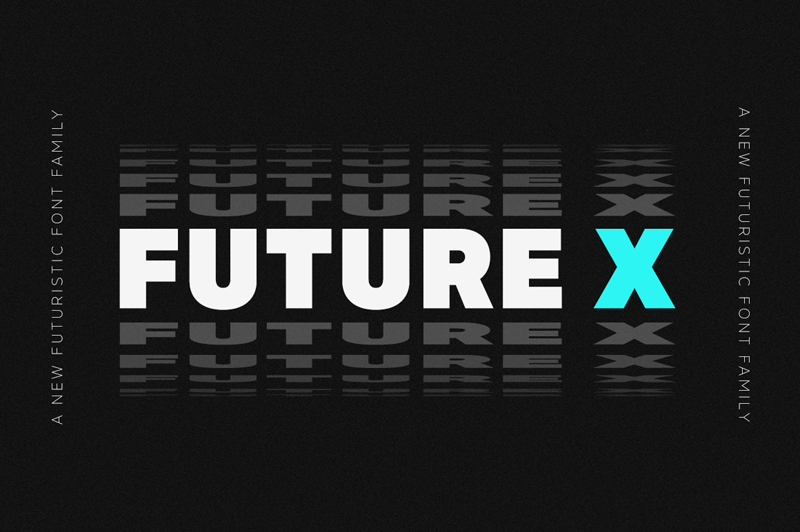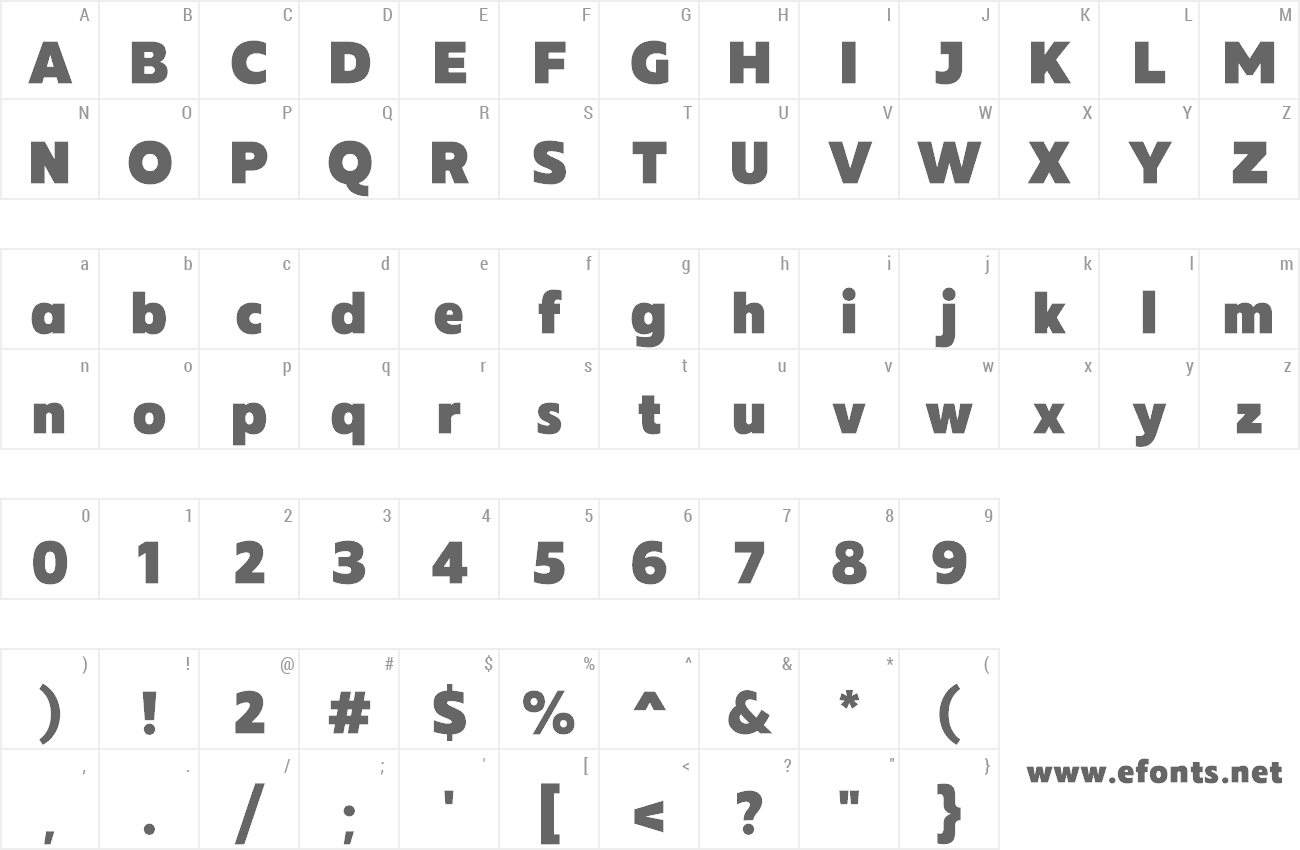
Font name: | MADE Future X |
Author: | MadeType |
The Future X is a modern font family. The family includes 14 fonts. Future X is made in the usual and futuristic style with the possibility of combining. The Future X font family supports multilingual letters. The Future X will perfect for many project: logo, branding, magazines, quotes, header, blog header, poster, advertisements, etc. Future X HEADER is perfect for headlines, blog headers, posters, newspapers, logo, book design, music posters, etc. Toggle 'Caps Lock' to use the alternate letters in the Future X HEADER. For search in graphic and text programs: the installed OTF files begin on MADE ----- Font is FREE for PERSONAL USE. Contact me mail for commercial use and questions: Madetypeinfo@gmail.com ----- FOR PERSONAL AND COMMERCIAL WORK https://www.fontspring.com/fonts/madetype https://creativemarket.com/MadeType https://thehungryjpeg.com/madetype https://www.youworkforthem.com/designer/1002/madetype/ ----- https://www.behance.net/madetype More... |